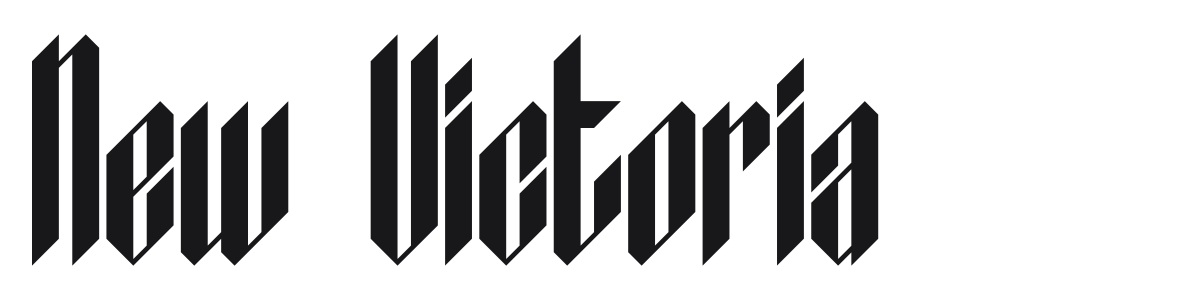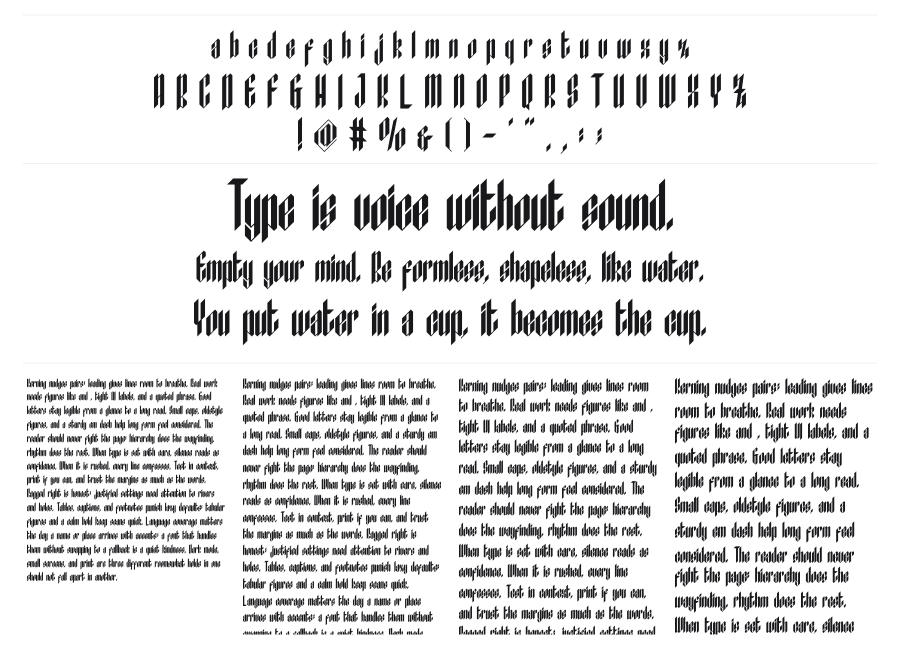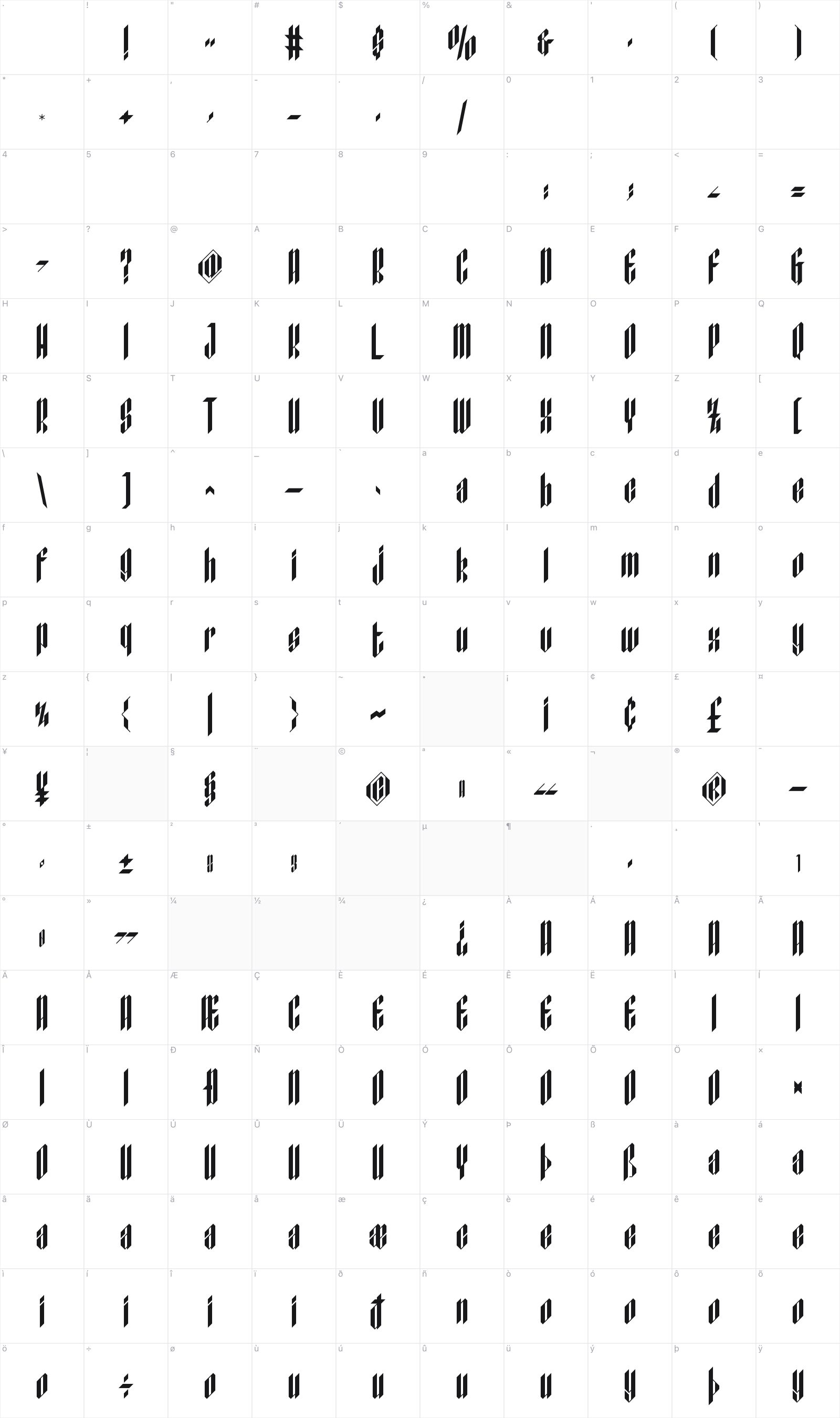
New Victoria
New Victoria is a heavy condensed blackletter with sharply pointed terminals and extreme stroke contrast that leans hard into gothic drama. The angular construction and tight spacing give it the density of classic German textura filtered through a modern metal aesthetic. Strong at large sizes for logos, album art, and editorial headlines with an edge.